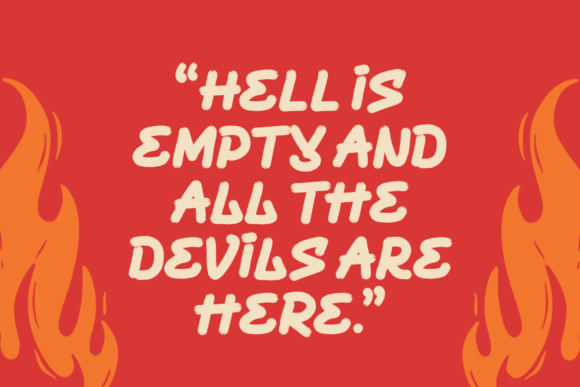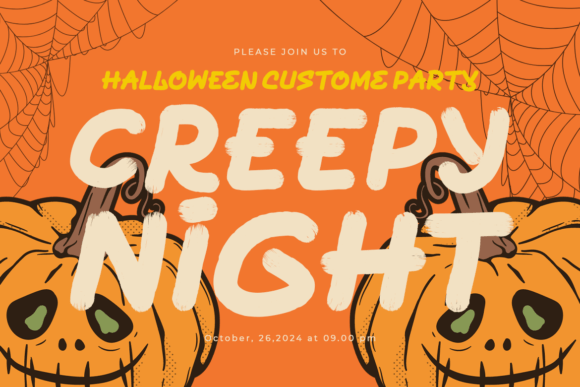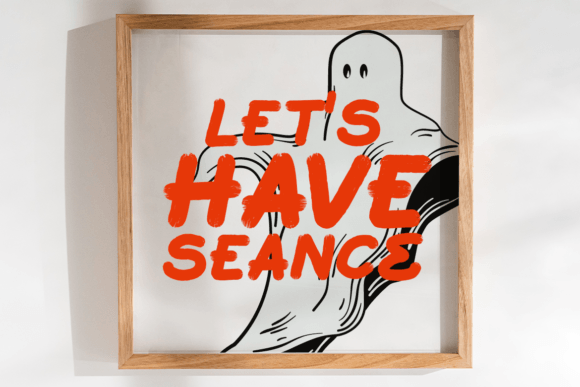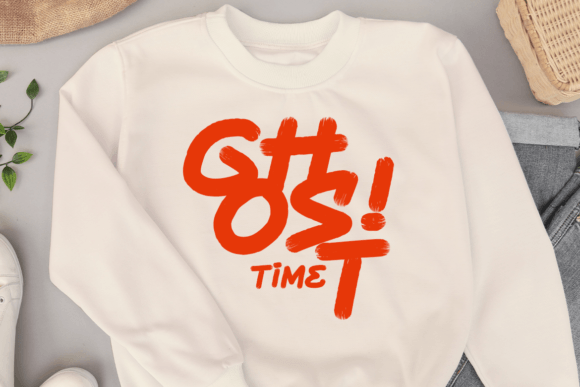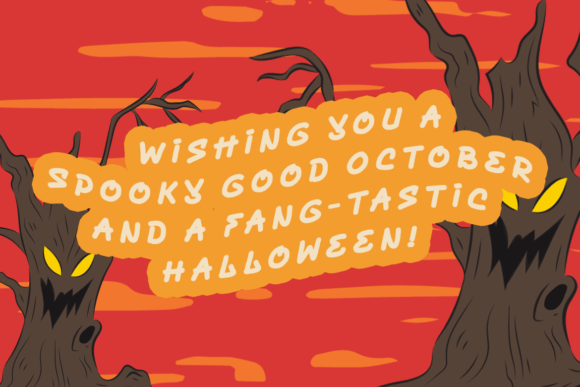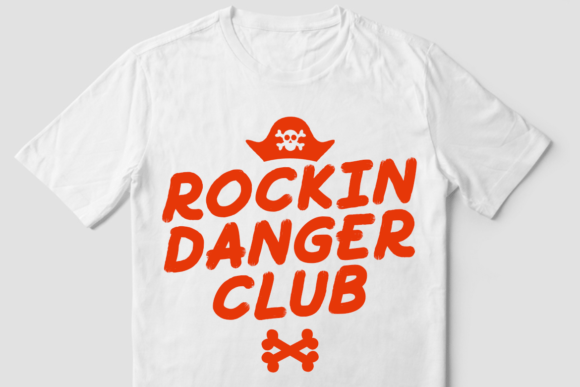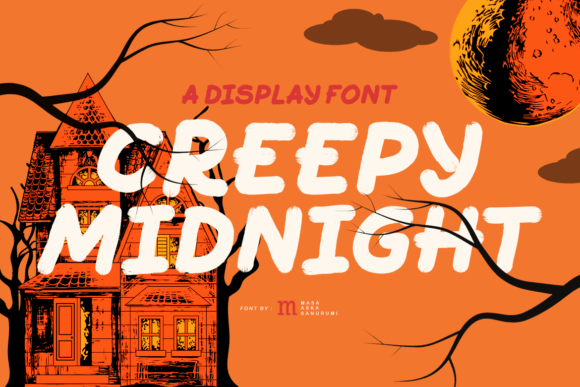
Unleash the Spookiness: Discover the Creepy Midnight Font
Are you tired of using the same old fonts in your designs? Do you want to add a touch of spookiness and uniqueness to your creations? Look no further than the Creepy Midnight Font. This incredibly unique and interesting display font is sure to make each of your designs stand out from the crowd.
The Perfect Font for Spooky Designs
Creepy Midnight is a one-of-a-kind font that is perfect for designers and crafters who want to add a touch of eeriness to their work. Whether you’re creating a haunted house flyer, a spooky Halloween invitation, or a creepy logo for a horror movie, this font is sure to deliver. Its spooky and a bit creepy design will send shivers down the spines of your audience and leave a lasting impression.
What Makes Creepy Midnight So Unique?
So, what makes Creepy Midnight so unique? For starters, its design is unlike any other font out there. The letters are twisted and turned in a way that creates a sense of unease and uncertainty. The font is perfect for creating a spooky atmosphere, and its versatility means you can use it for a wide range of designs.
Key Features of Creepy Midnight Font
• Unique Design: Creepy Midnight has a one-of-a-kind design that is sure to grab attention.
• Spooky and Creepy: This font is perfect for creating spooky and creepy designs that will leave a lasting impression.
• Display Font: Creepy Midnight is a display font, making it perfect for headlines, titles, and other large text elements.
How to Use Creepy Midnight Font in Your Designs
• Use it as a Headline: Creepy Midnight is perfect for headlines and titles. Use it to grab attention and create a spooky atmosphere.
• Experiment with Colors: Try using Creepy Midnight with different colors to create a unique and eye-catching design.
• Pair it with Other Fonts: Creepy Midnight can be paired with other fonts to create a unique and interesting design.
Why Designers and Crafters Love Creepy Midnight
Designers and crafters love Creepy Midnight for a variety of reasons. Here are a few:
• Unique Design: Creepy Midnight has a unique design that sets it apart from other fonts.
• Spooky and Creepy: Creepy Midnight is perfect for creating spooky and creepy designs that will leave a lasting impression.
In conclusion, Creepy Midnight is an incredibly unique and interesting display font that is perfect for designers and crafters who want to add a touch of spookiness to their work. Its spooky and a bit creepy design makes it perfect for creating haunted house flyers, spooky Halloween invitations, and creepy logos for horror movies. With its ease of use and versatility, Creepy Midnight is sure to become a favorite font among designers and crafters.